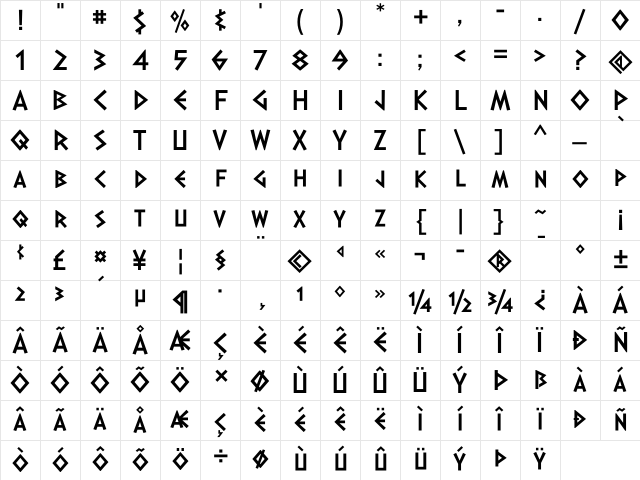
Complete Dalek Pinpoint Bold glyph index. Displaying only characters natively supported by Dalek Pinpoint Bold font.
Dalek Pinpoint is a composed and adaptable typeface that performs quietly and consistently across a wide range of design contexts. Its bold stroke weight gives it real presence on the page.